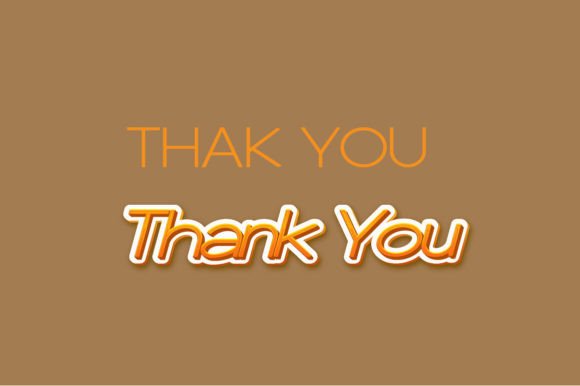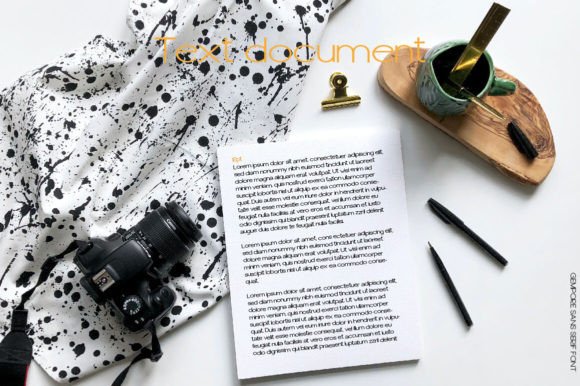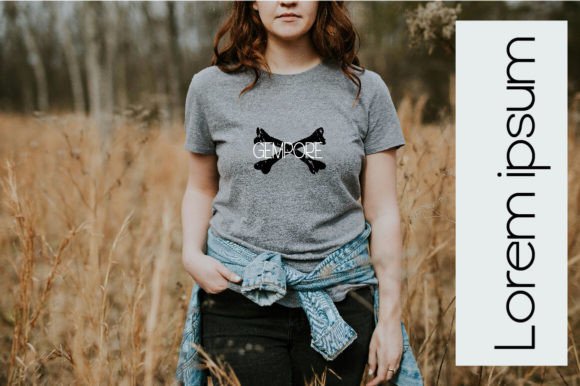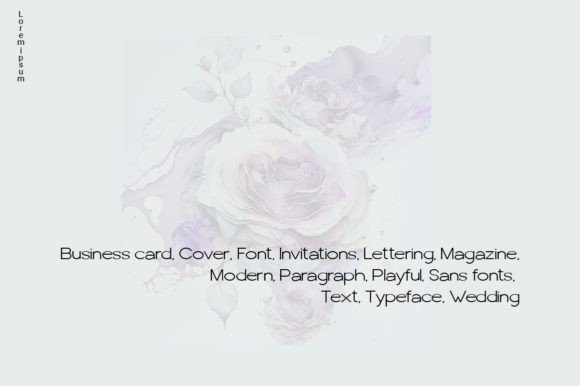
Introduction to Gempore Font
Gempore is a modern sans serif font with ligatures, best used as a display for headings, logos, branding, magazines, product packaging, text document, brochures, social media post and invitations project.
Gempore comes with clean lines and smooth curves giving any project an extra touch of class Making your designs more modern and professional with Gempore font.
Key Features of Gempore Font
Why Choose Gempore Font?
Gempore Font offers exceptional quality and versatility, making it a valuable addition to your design toolkit. Whether you’re creating for personal projects or commercial use, Gempore Font delivers professional results.